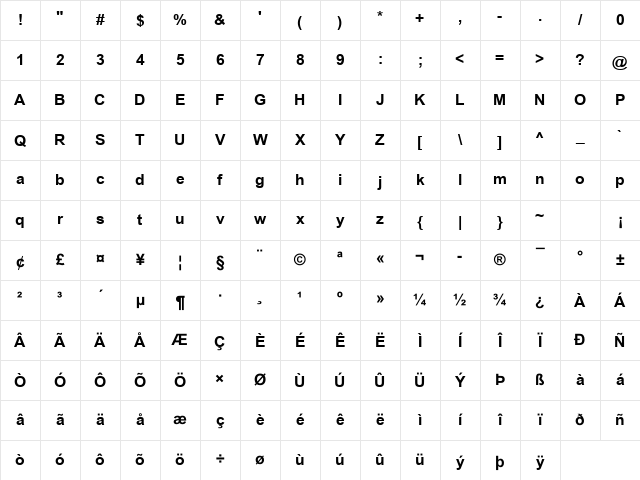
BrowalliaUPC Bold
BrowalliaUPC Family
Design Context for BrowalliaUPC
BrowalliaUPC is a composed and adaptable typeface that performs quietly and consistently across a wide range of design contexts. Its bold stroke weight gives it real presence on the page.